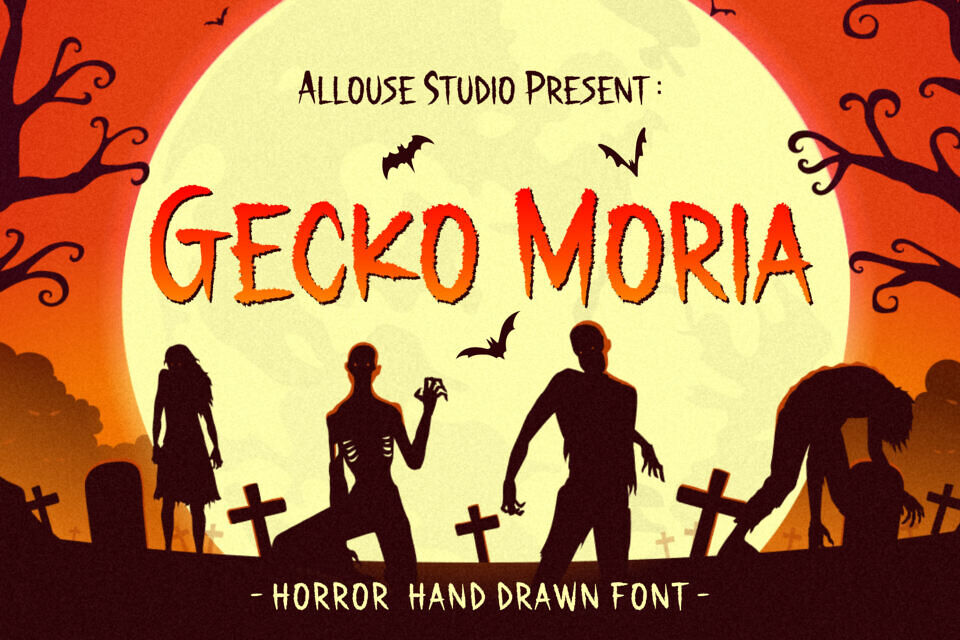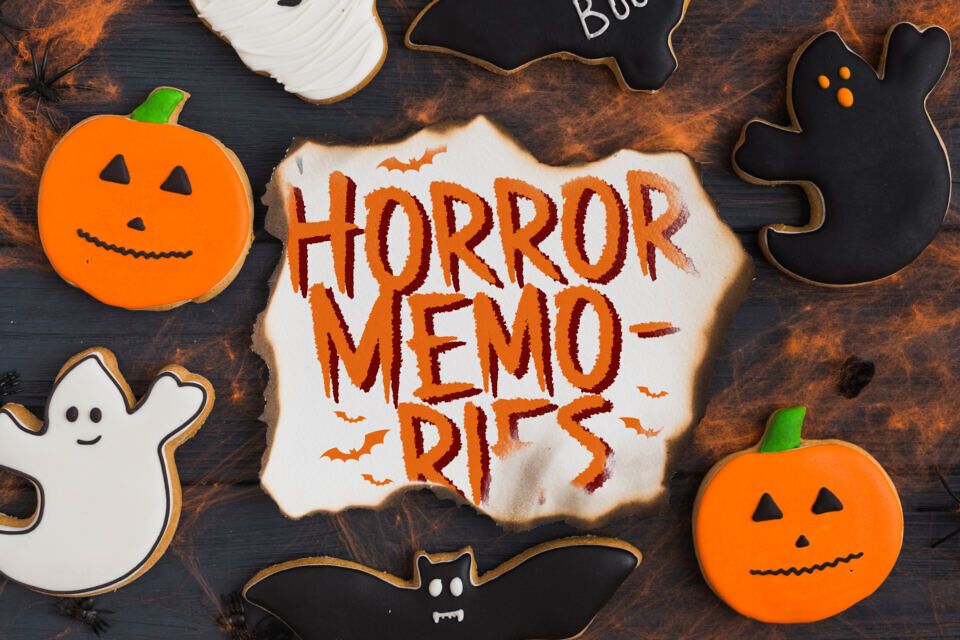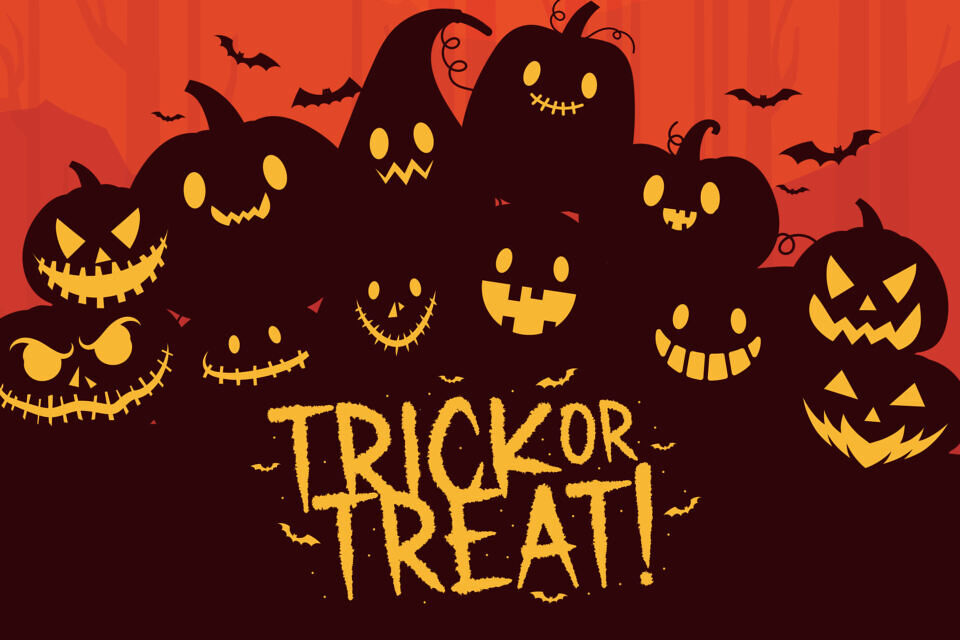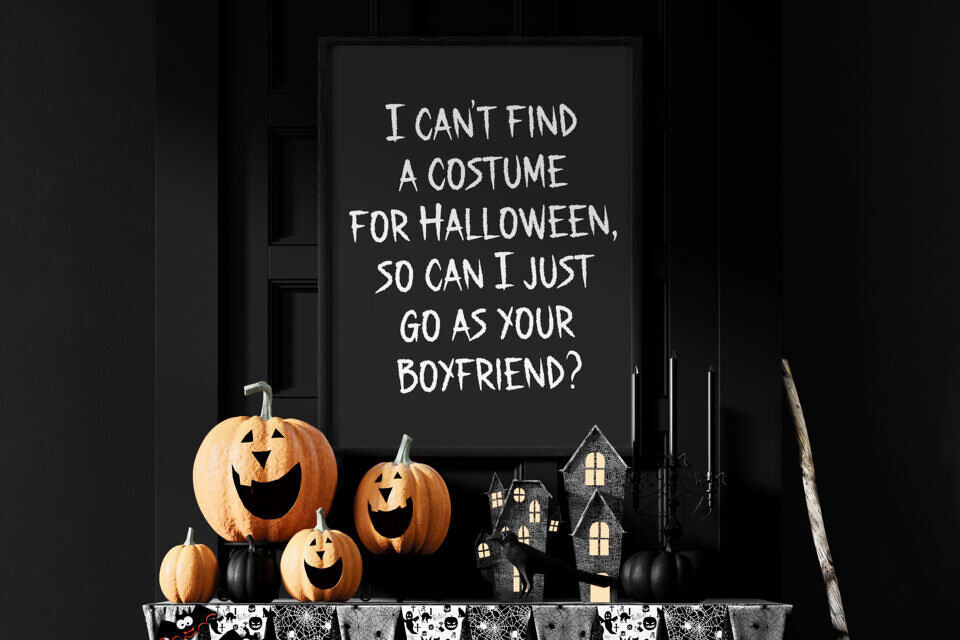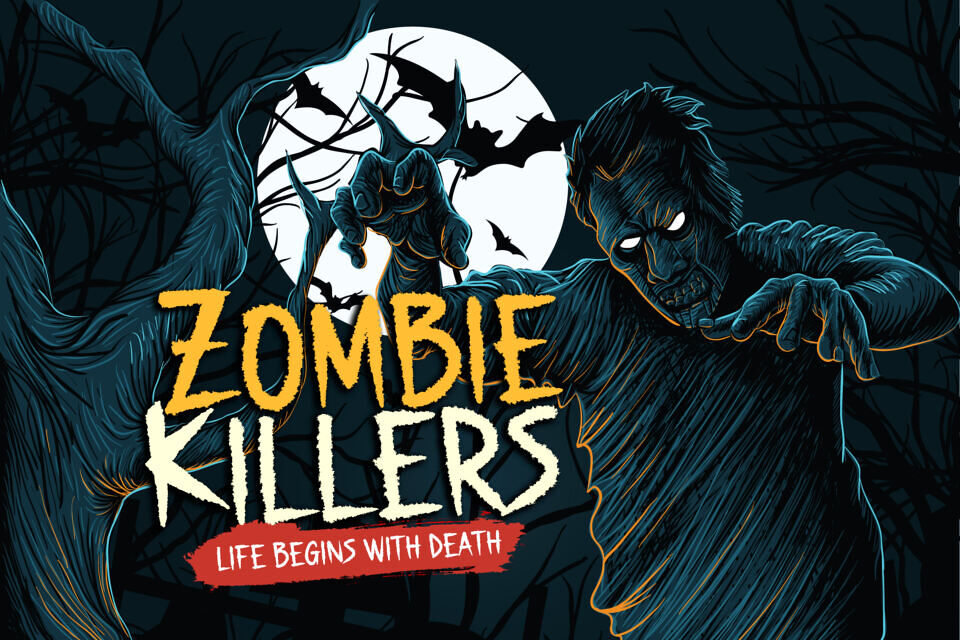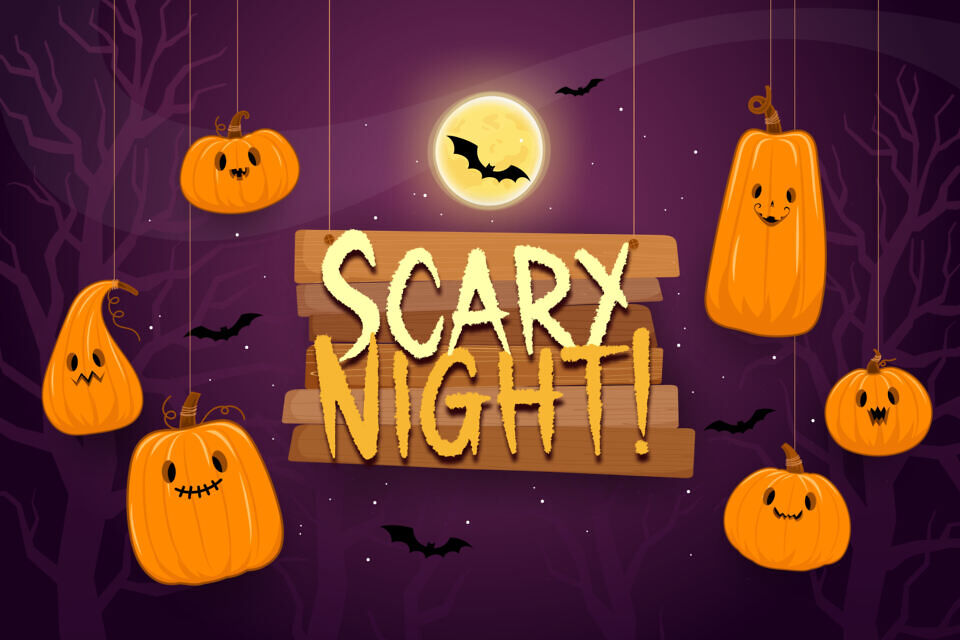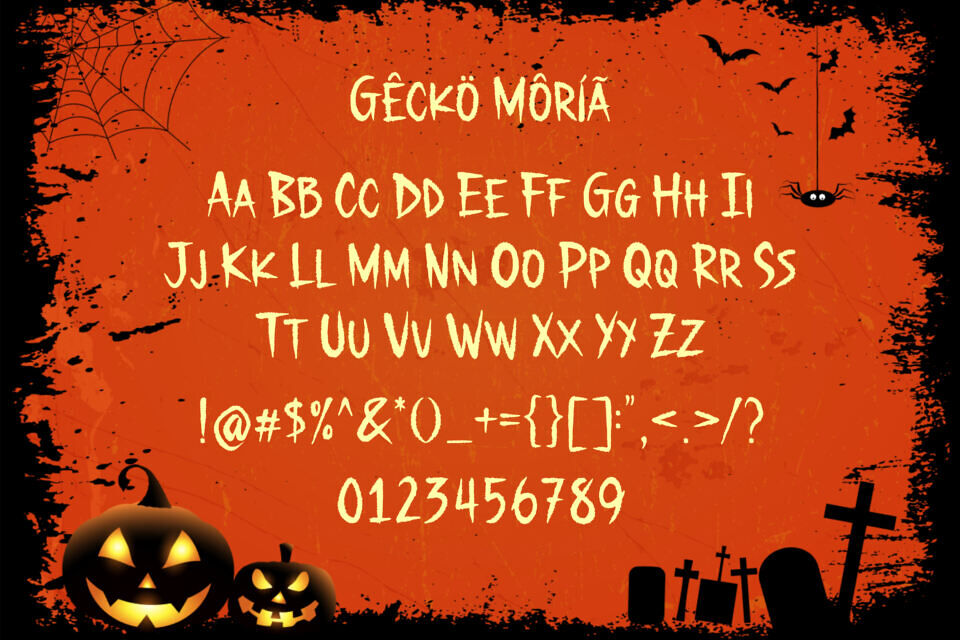
Gecko Moria Font
Introducing Gecko Moria, a hand-drawn horror font by Allouse Studio.
Gecko Moria is perfect for any titles, logo, product packaging, branding project, megazine, social media, or just used to express words above the background.
Gecko Moria also come with Multi-Lingual Support.